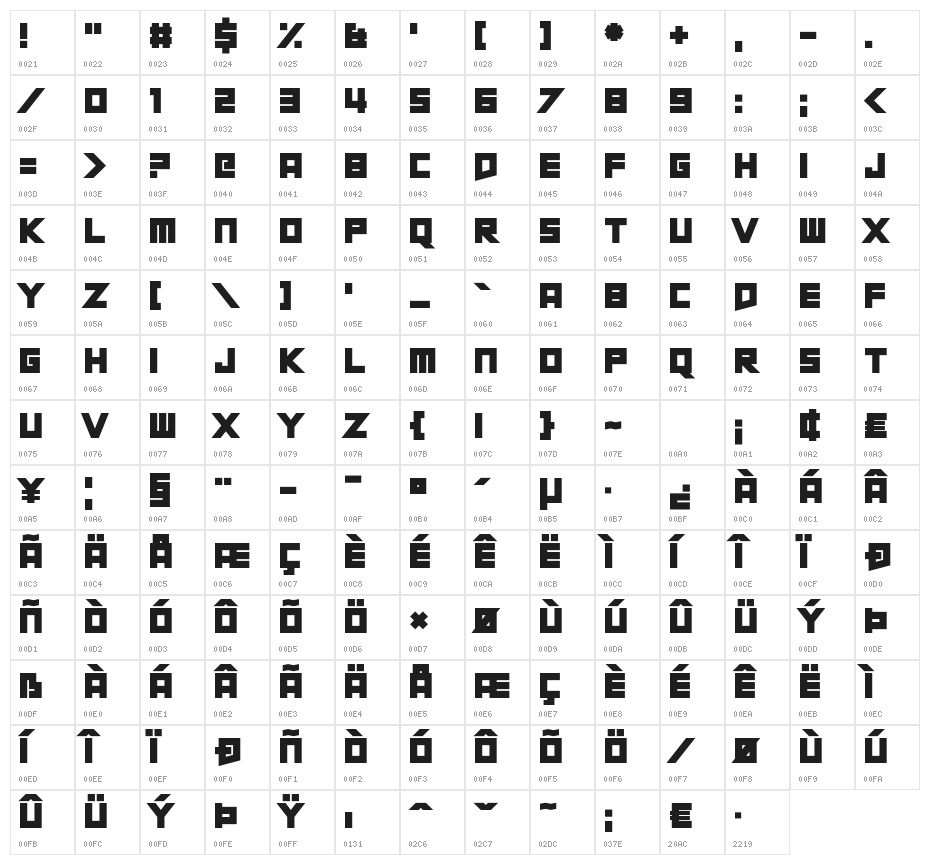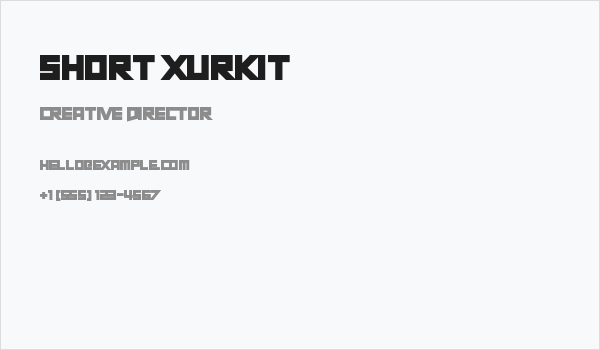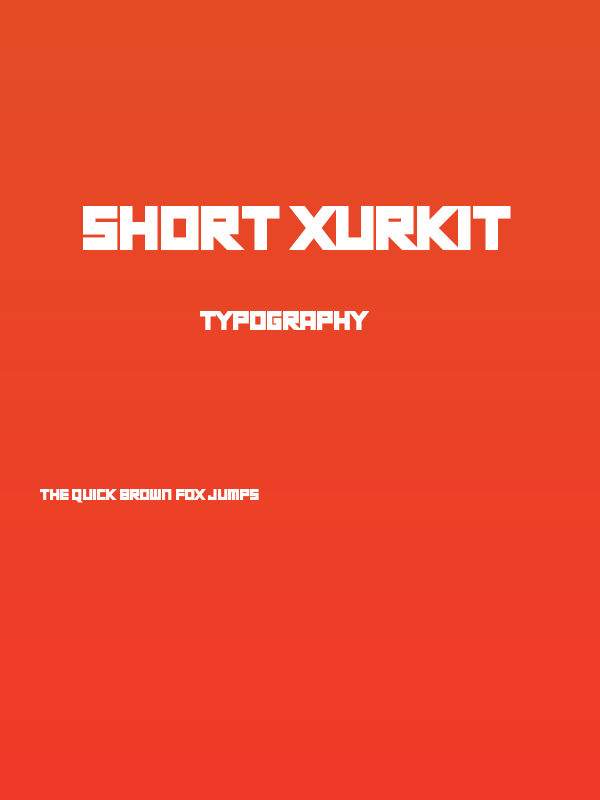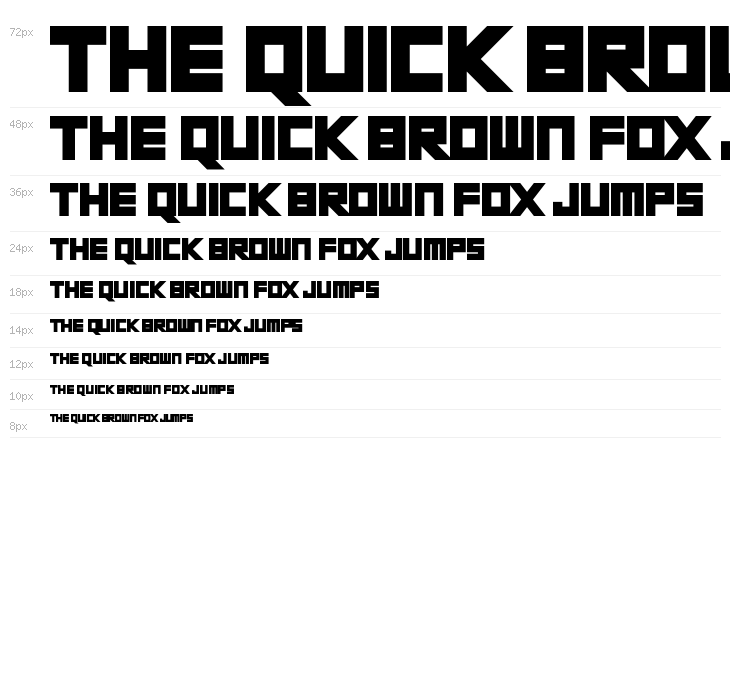
Short Xurkit Font
Short Xurkit Description
This font features a bold, geometric design with a futuristic and angular aesthetic. The characters are constructed with sharp edges and straight lines, giving it a strong and impactful presence. The uppercase letters are particularly striking, with unique cuts and angles that create a sense of movement and dynamism. The numbers and special characters maintain this bold style, ensuring consistency across all elements. The font's design is reminiscent of digital or sci-fi themes, making it ideal for projects that require a modern and edgy look.
| Proposed Projects | Ideal for sci-fi themed posters, video game graphics, tech branding, and digital media. |